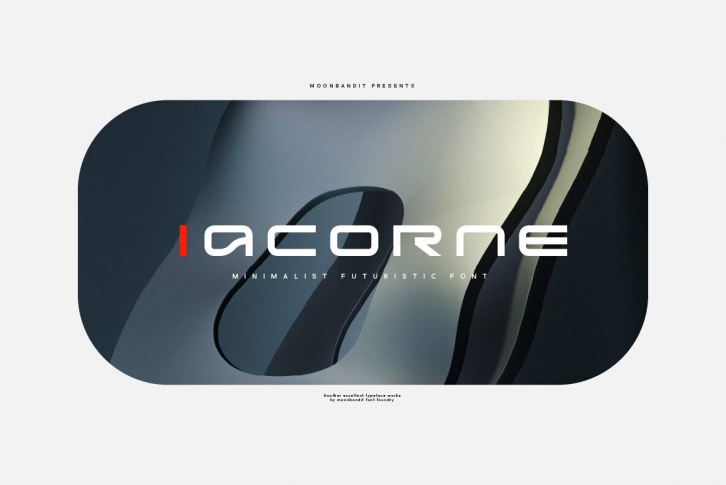
Acorne is a wide geometric sans serif display font. A beautiful combination of rounded and straight sharp edge. This modern minimalist typeface design can be used for any theme. Perfect usage includes logo, poster, display, headline, t-shirt design and many more.